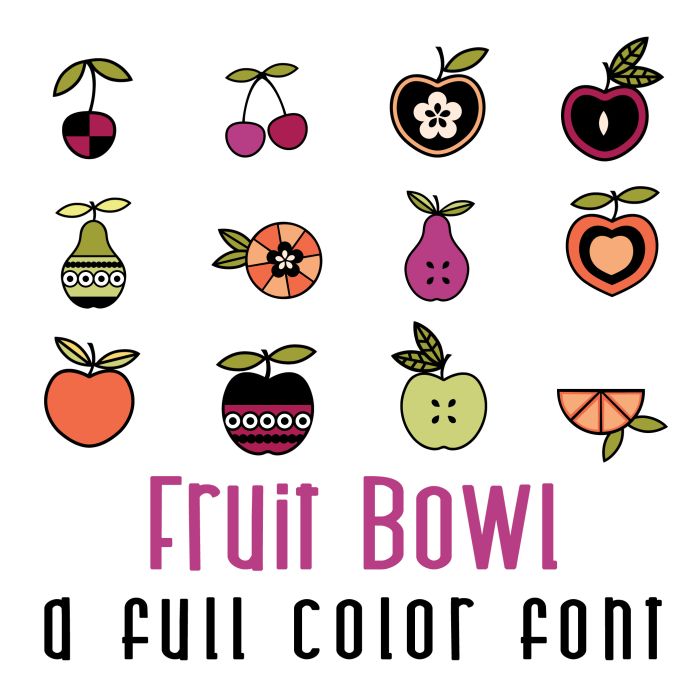
The Fruit Bowl Full Color Font features 26 vibrant and modern fruit designs. Perfect for food-related projects, this font adds a fun and fresh touch to any design related to food, dining, or gardening. Its colorful and whimsical style is sure to catch the eye and bring a sense of joy to your project. Perfect for cards, crafts, gifts, decor, parties, planner stickers, scrapbook pages and more!